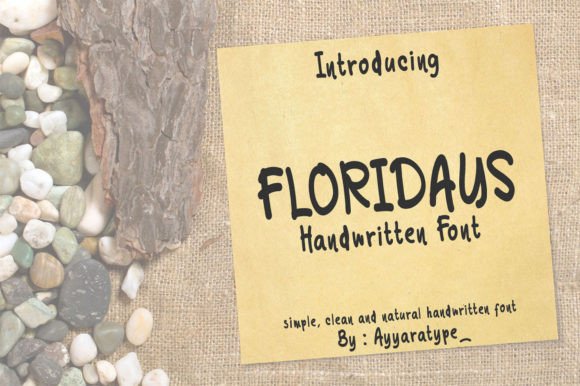
Floridays Font
**Get ready to put some music to your words with Floridays Font!**
This charming script font is designed to make your words dance and sing on the page. Its free-flowing curves and playful strokes will add a touch of whimsy and personality to any project you throw its way.
Picture this: your social media posts popping with a vibrant and unique message, thanks to Floridays Font. Your blog posts will take on a whole new level of charm and warmth. And those greeting cards you send to loved ones will be filled with heartfelt emotion.
But that's not all! Floridays Font is also perfect for creating eye-catching logos, stunning posters, and memorable branding materials. Its versatility knows no bounds!
Whether you're a seasoned designer or just starting your creative journey, Floridays Font is the perfect tool to add a dash of flair and personality to your work. It's like having a secret weapon in your font arsenal, ready to transform your words into works of art.
So why settle for ordinary when you can make your words sing with Floridays Font? Join the chorus of satisfied users who have discovered the magic of this enchanting script.